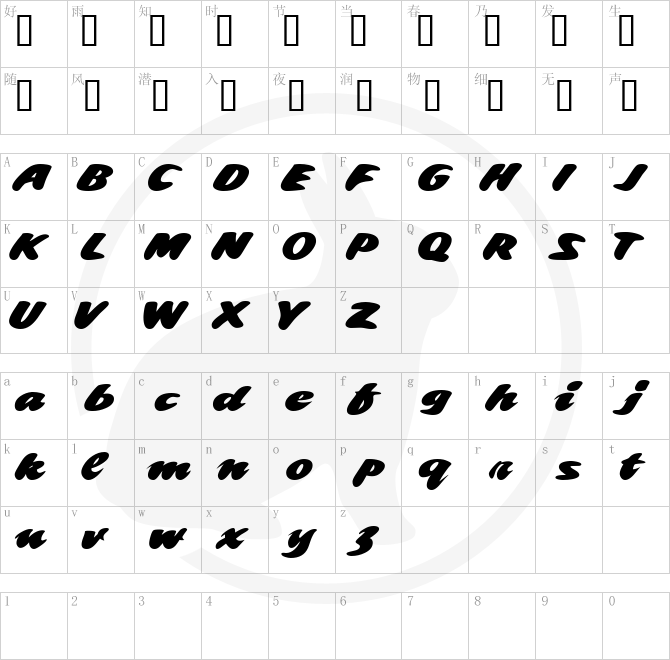
- Font Name:1 FatBoy DNA
1-FatBoy-DNA.ttf is a very beautiful artistic font, 1-FatBoy-DNA.ttf is widely used in the design and printing of various books and pictures,1-FatBoy-DNA.ttf has a strong visual impact,1-FatBoy-DNA.ttf is a commonly used font in newspapers, magazines and books, and is used in posters, e-commerce Poster design, store design, logo design, font design and other fields.1-FatBoy-DNA.